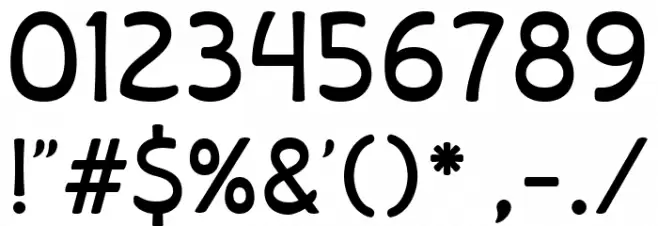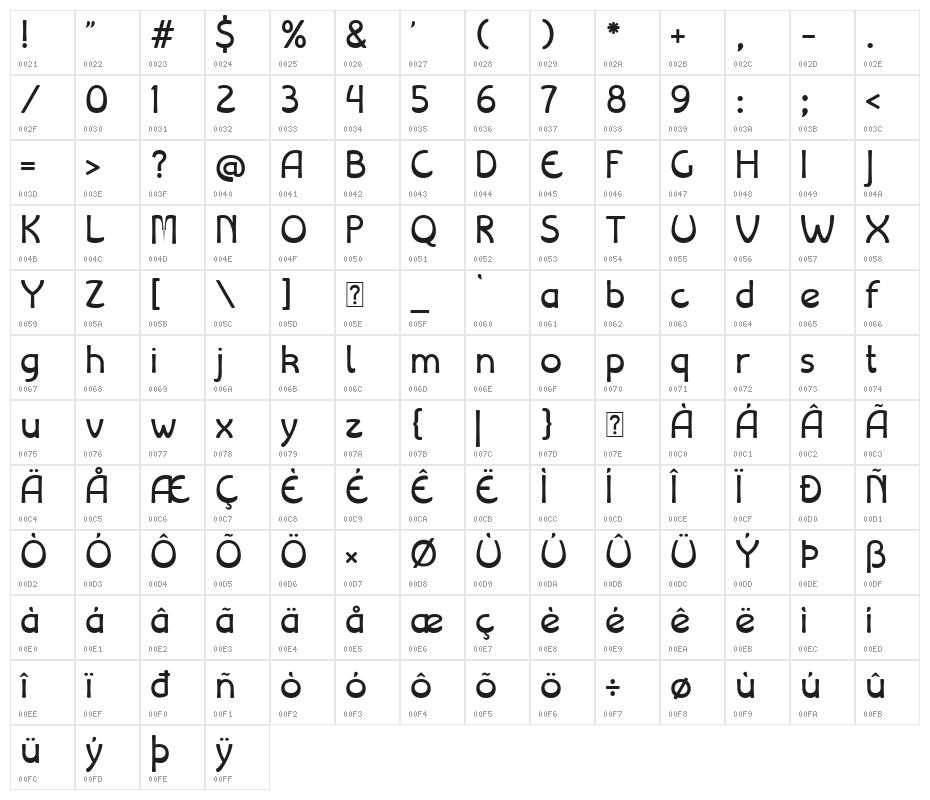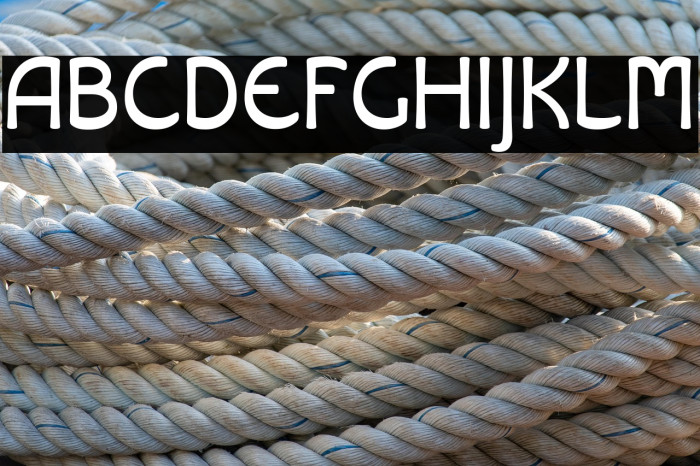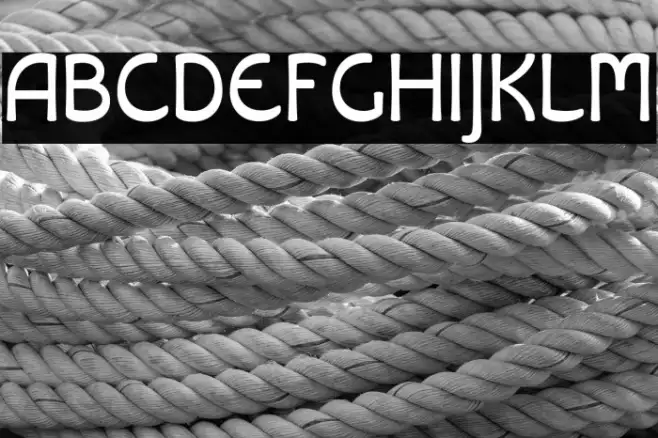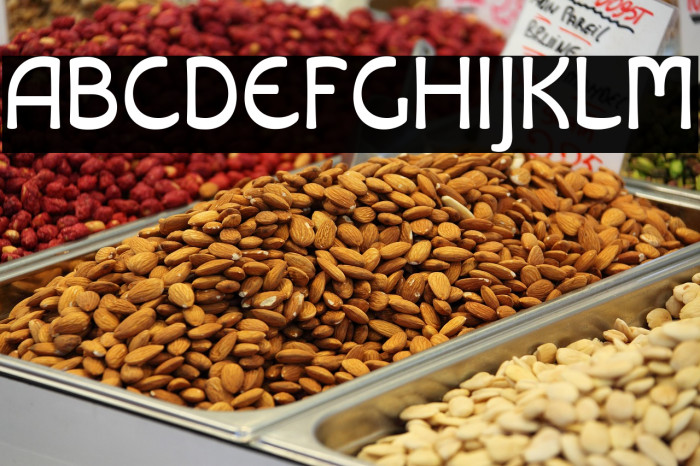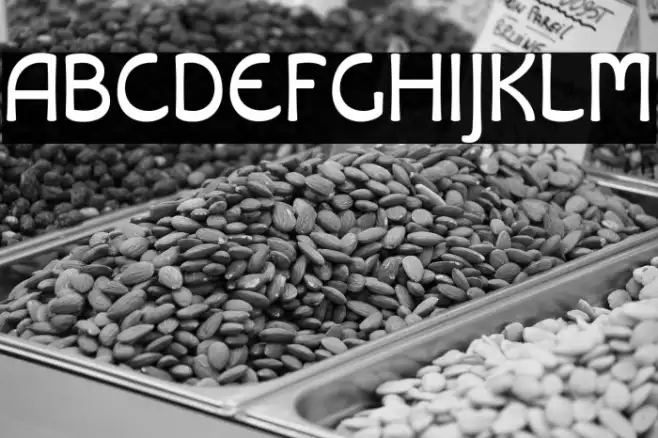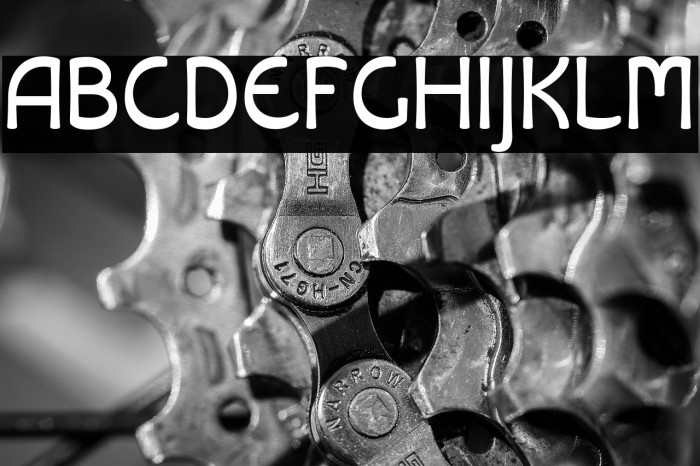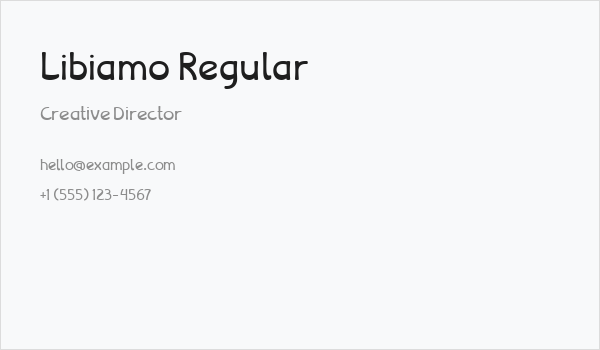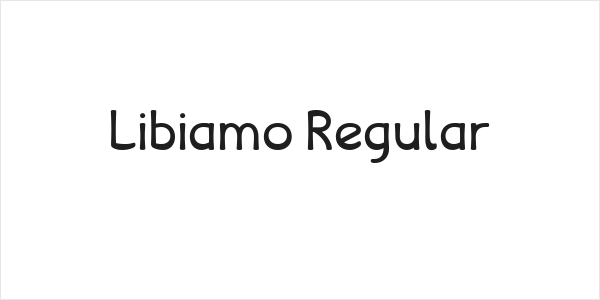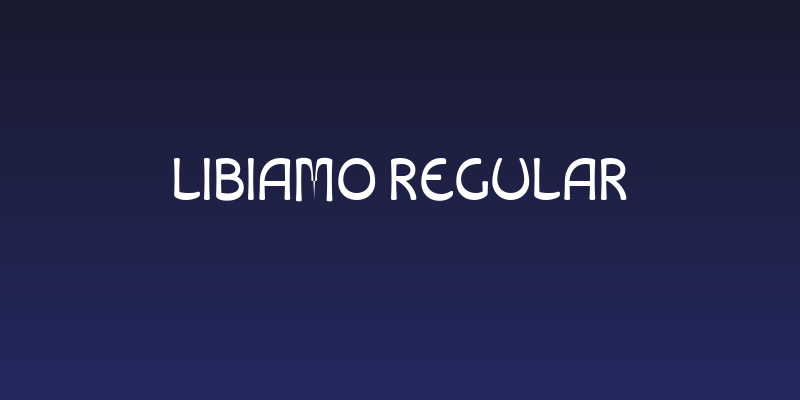
Libiamo Regular Font
This font features a playful and rounded design with a unique blend of curves and straight lines. The characters have a slightly whimsical appearance, making them stand out with a friendly and approachable vibe. The uppercase letters are bold and prominent, while the lowercase letters maintain a consistent style with a touch of elegance. Numbers and special characters follow the same design principles, ensuring uniformity across all glyphs. The overall look is modern yet retains a hint of classic charm, suitable for a variety of creative applications.